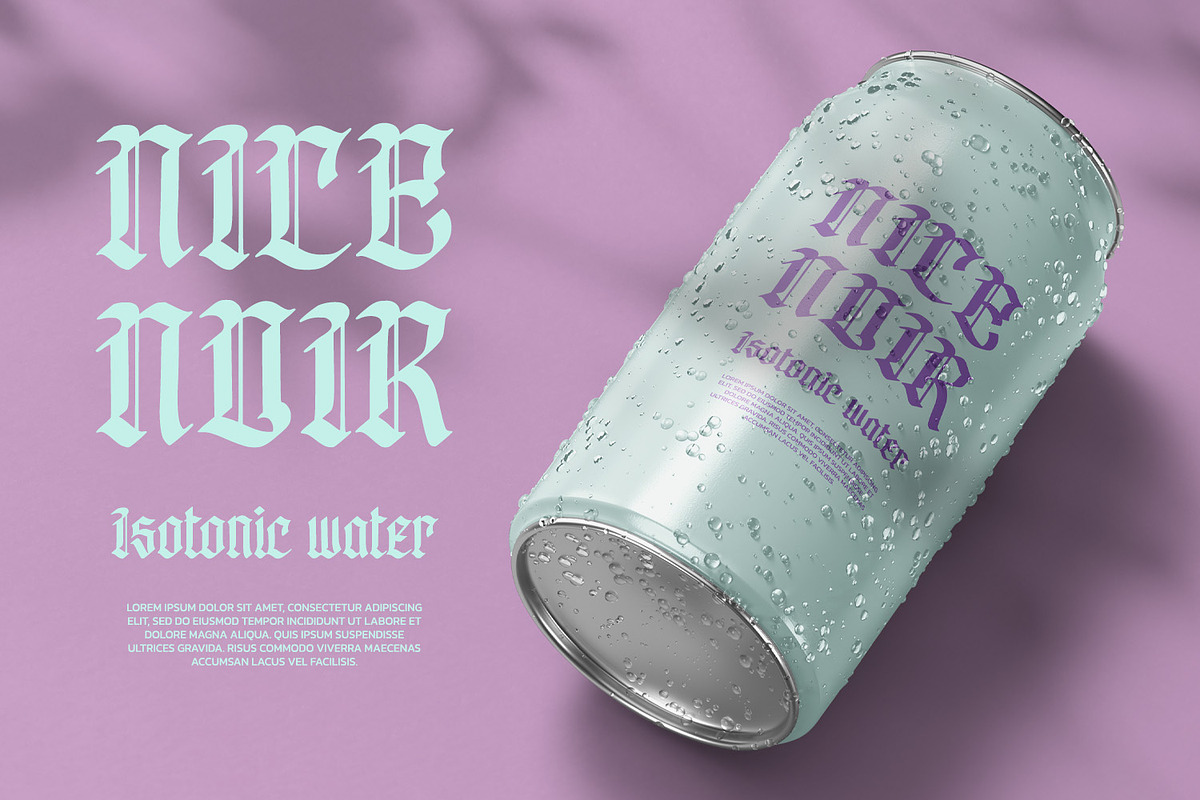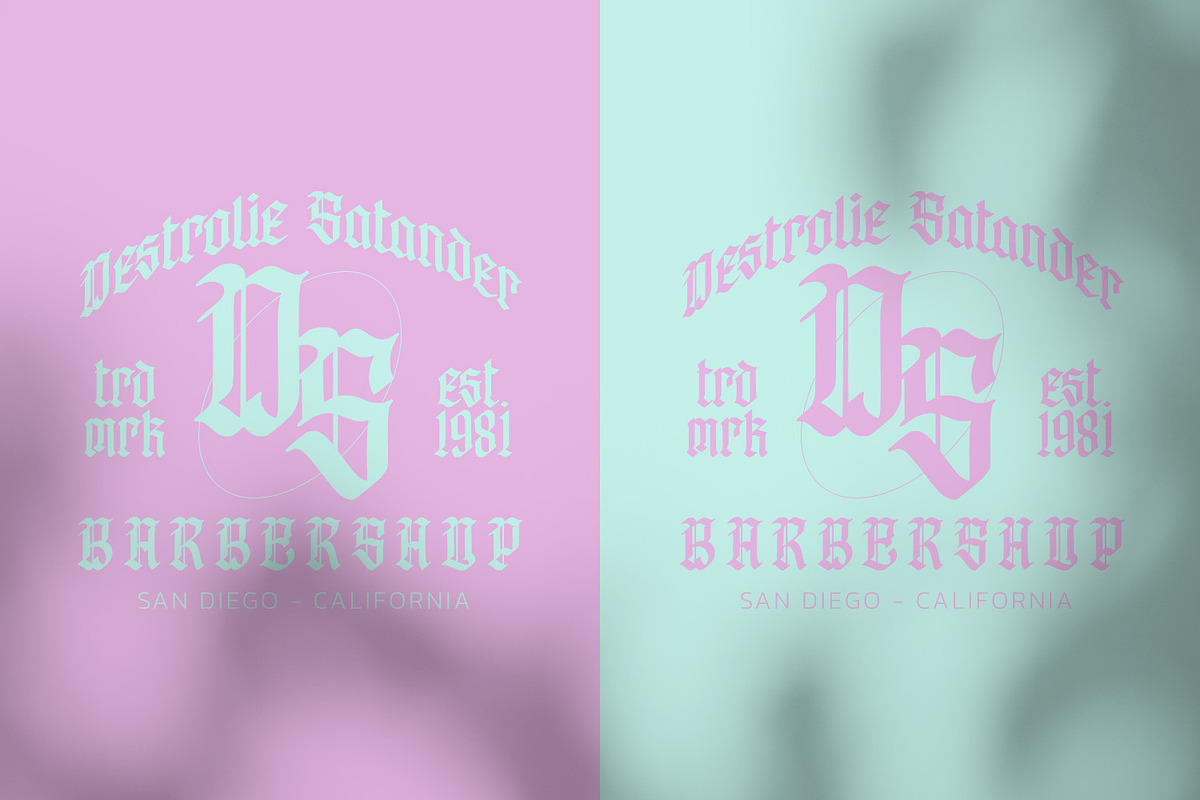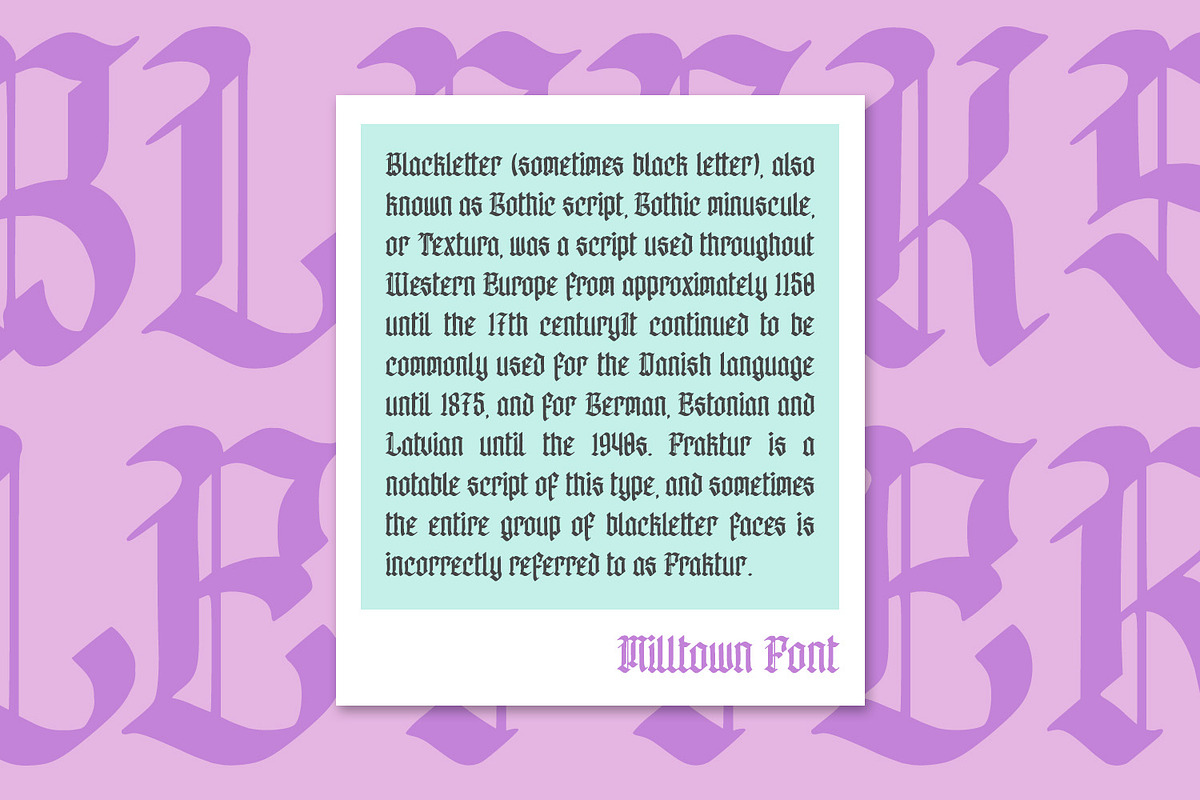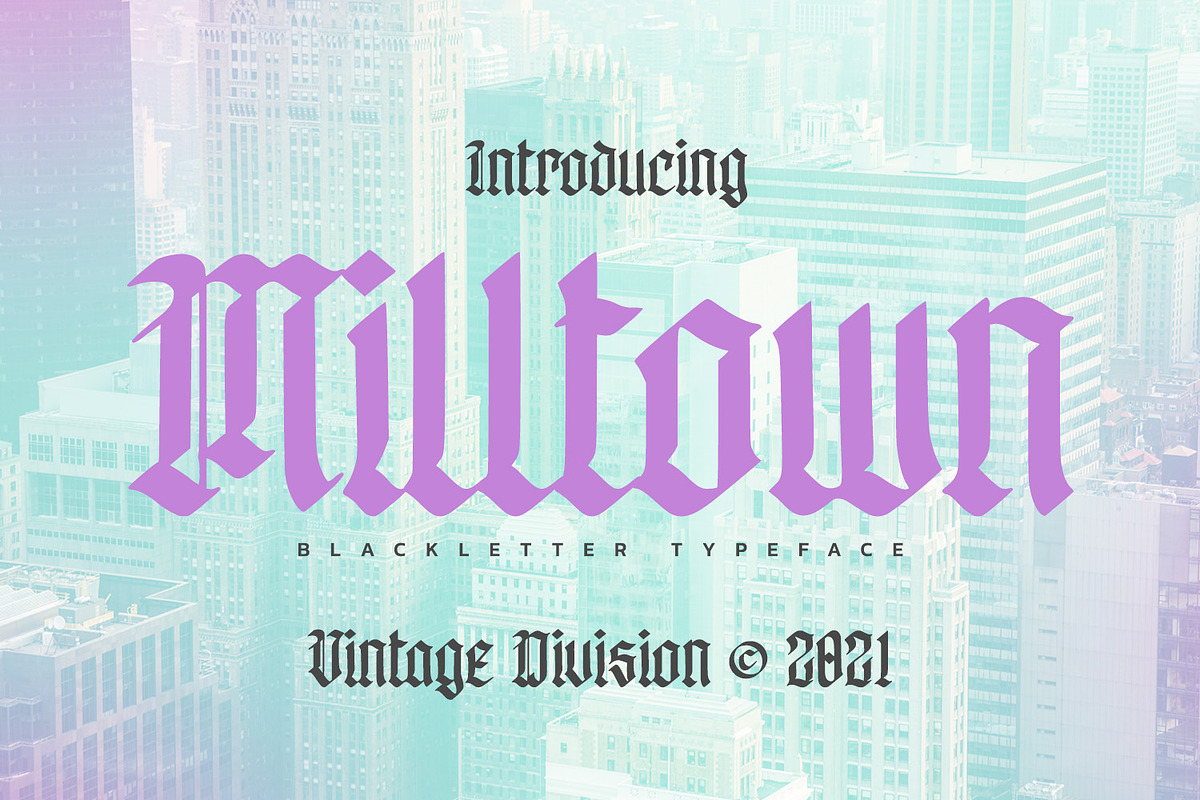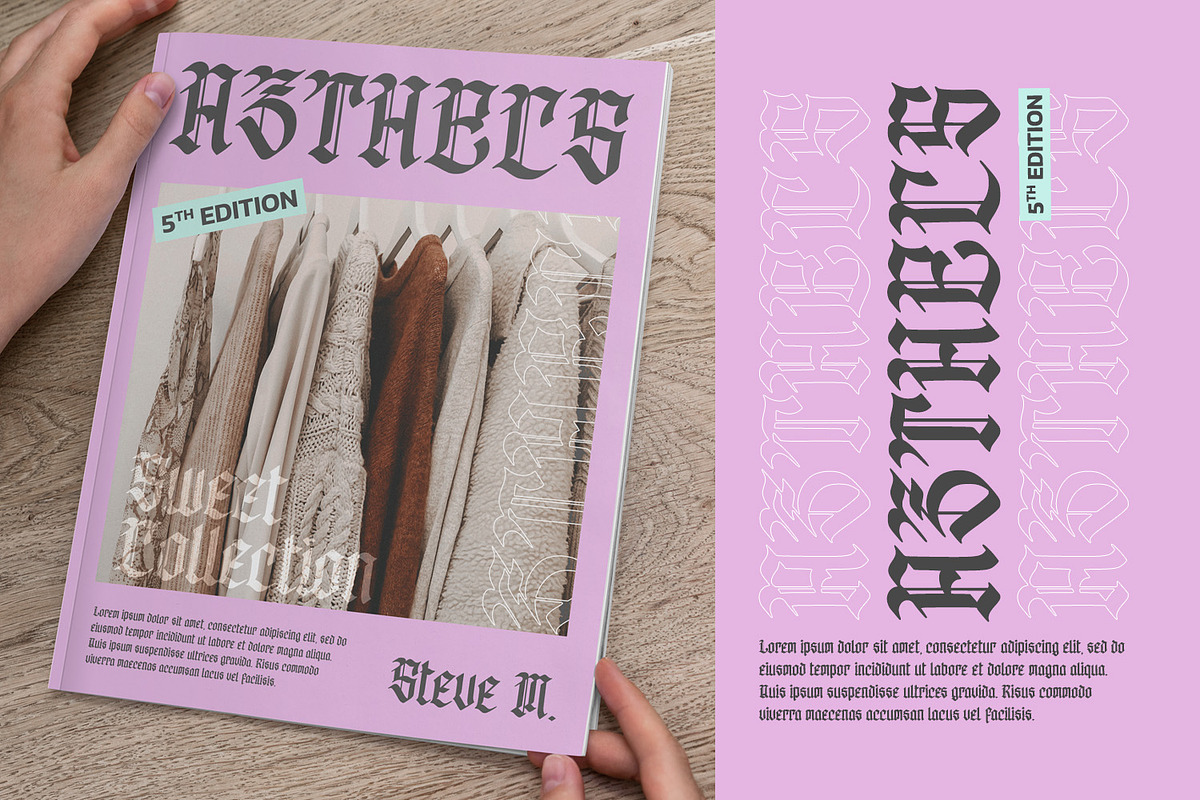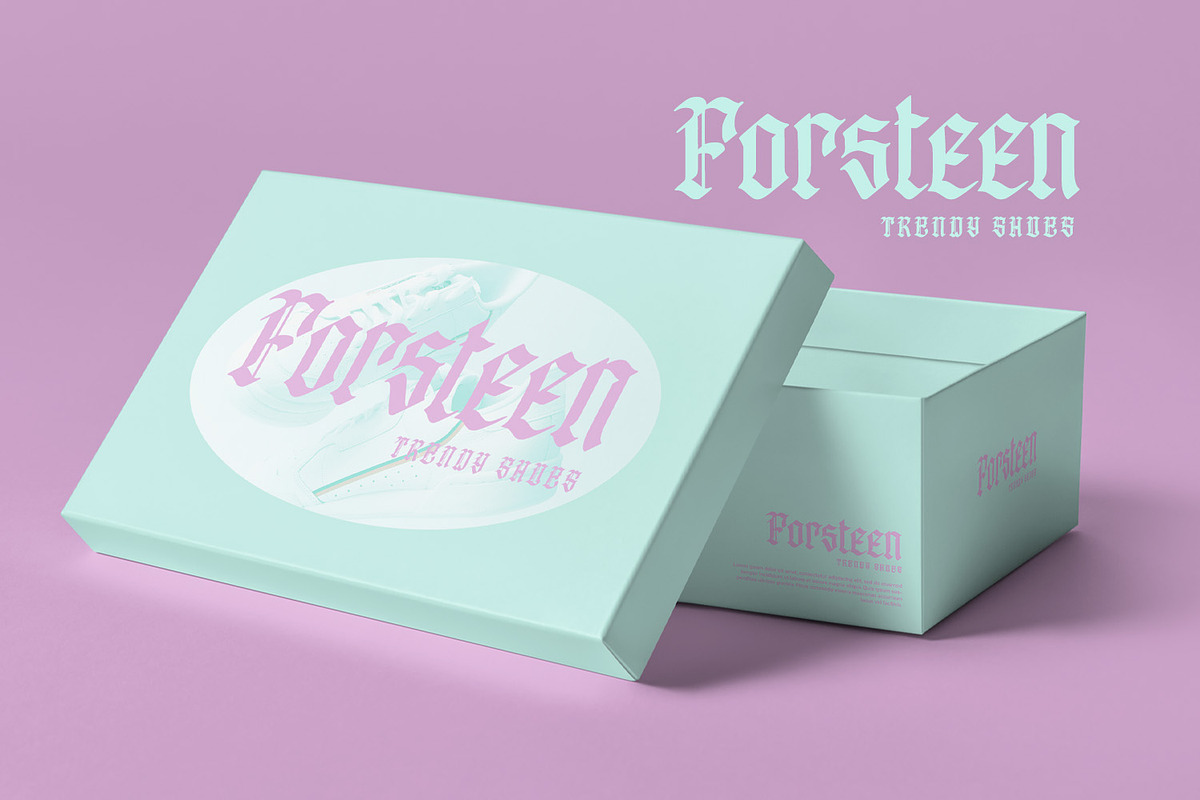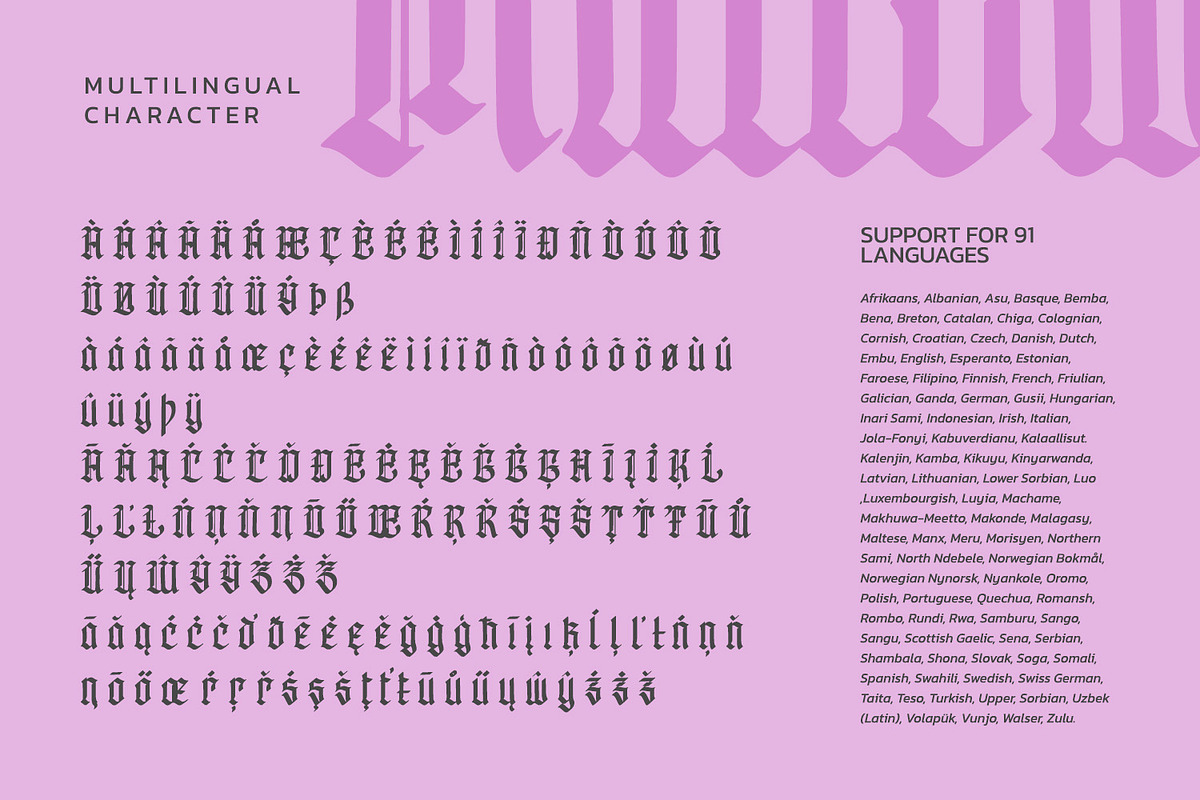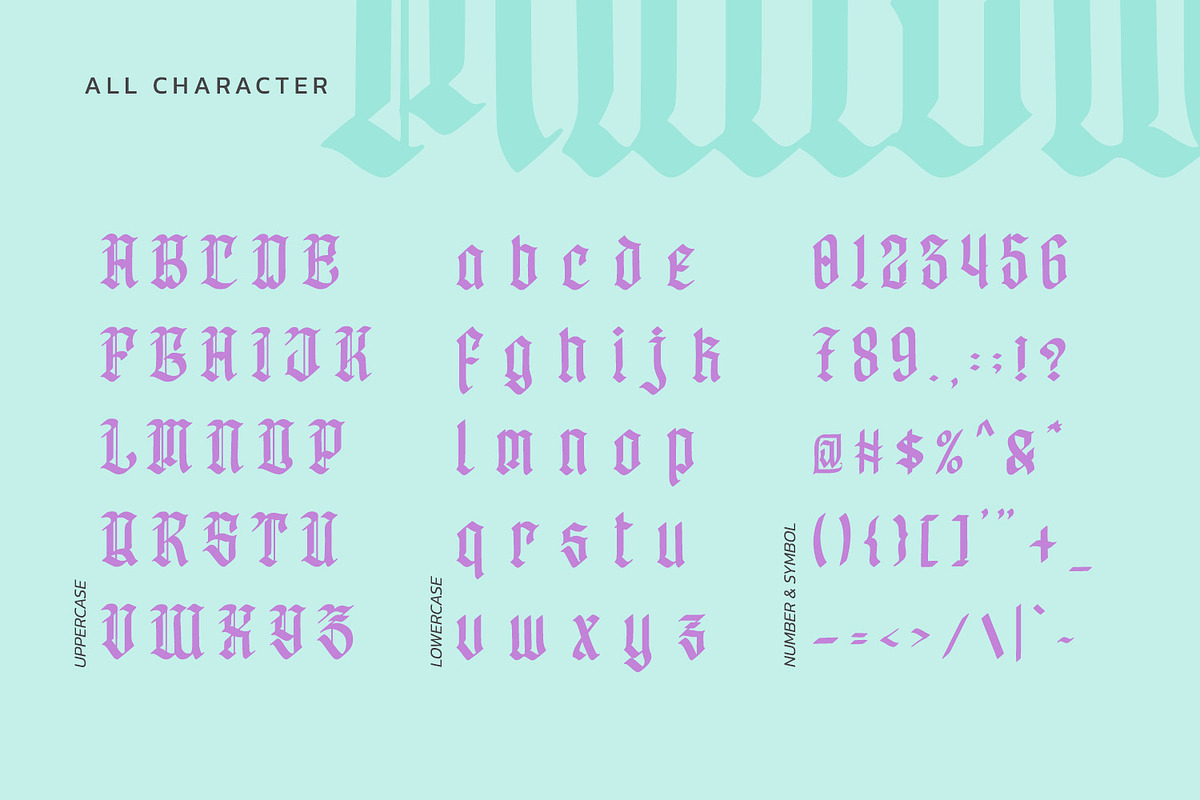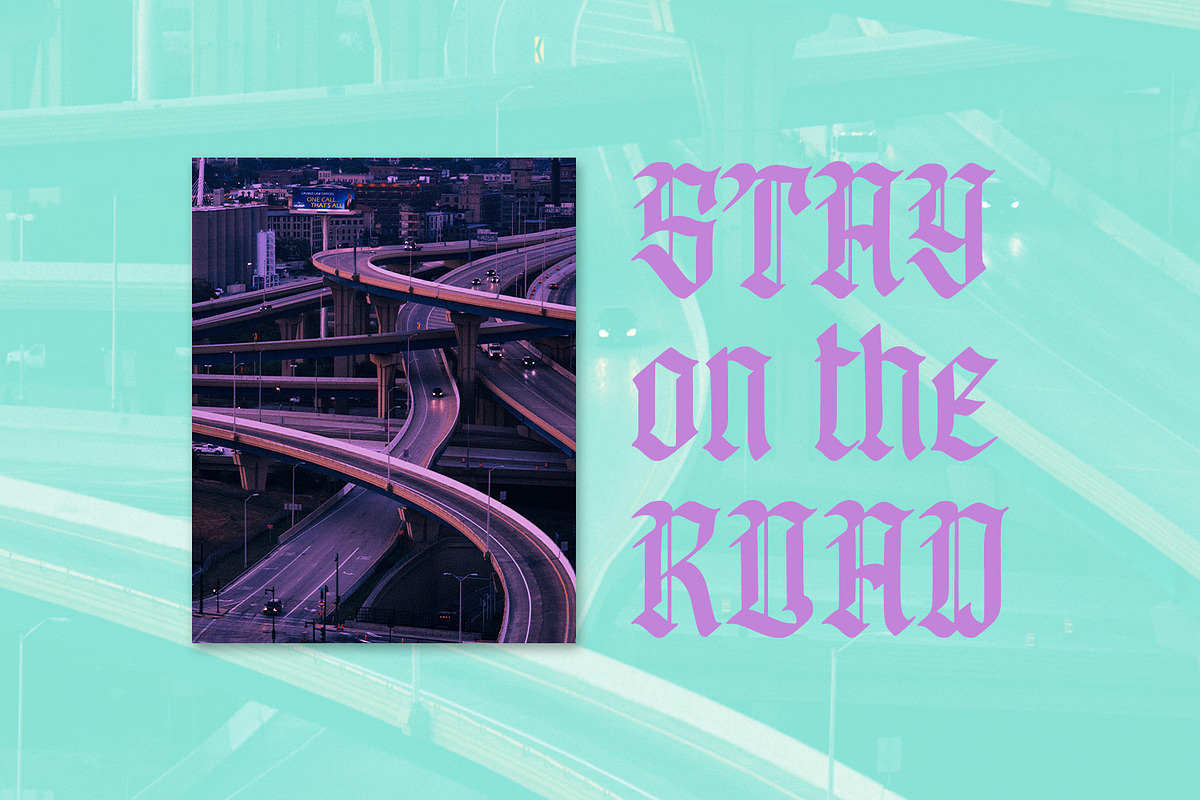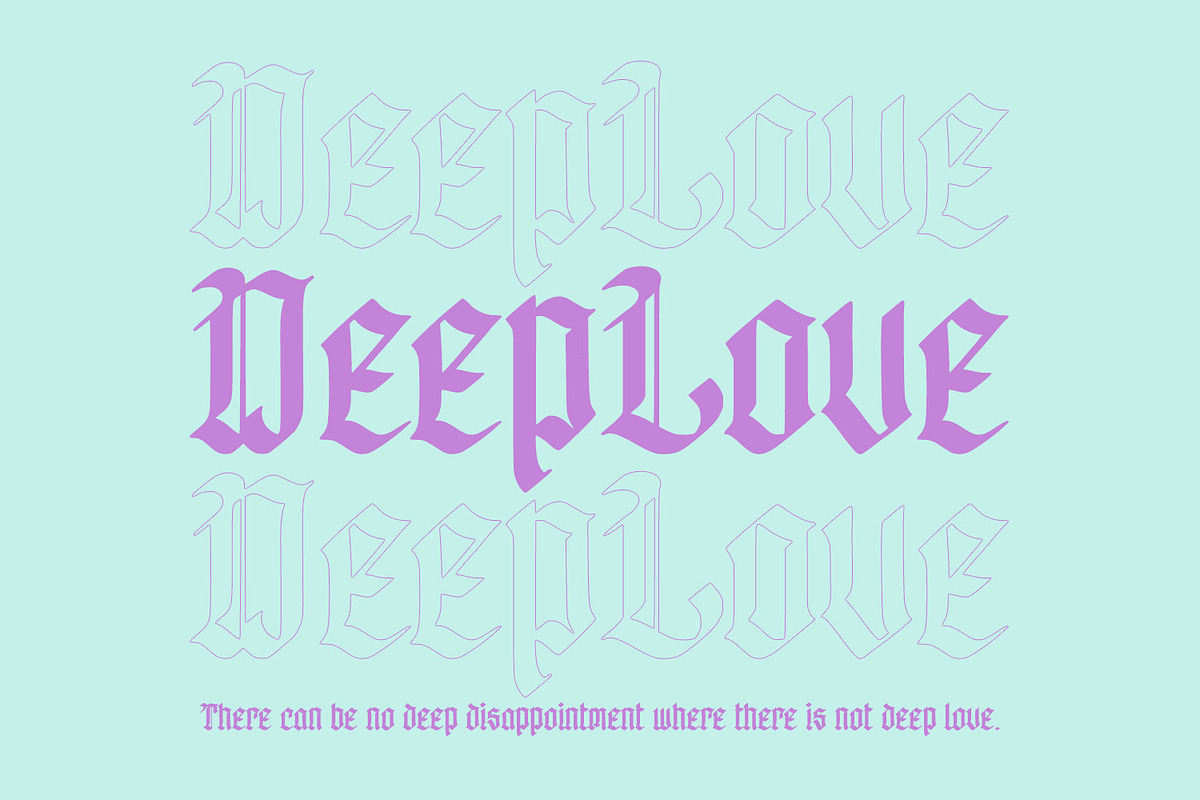
Milltown
Have you been looking for a blackletter font? Do you sometimes have an appetite for a bit more wholesome typography? Do you dream of creating headings that stand out and inspire creativity, imagination, and endless fun? Wait no more, we will give you the best choice.
Milltown-A Blackletter Font
Milltown is made to bring out a modern and stylish view of what you make. This typeface with artistic style looks very interesting for loads of different projects and promotions. A great all-in-one package for your logo, book cover, poster, t-shirt, branding, and advertisement needs.
Our fonts always includes Multilingual Support to make your branding reach a global audience.